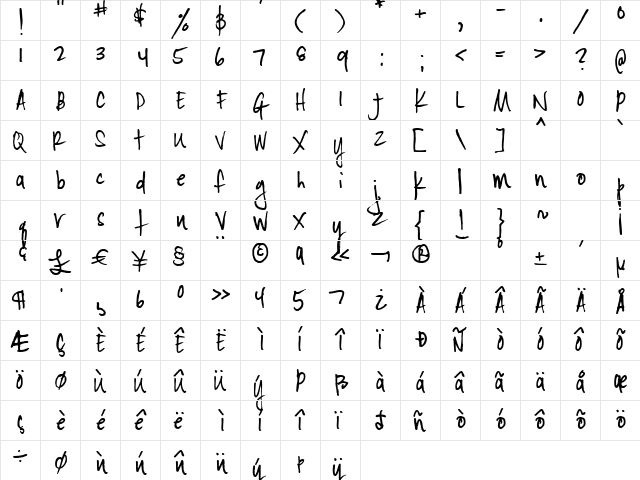
CinahandAlternate Light Font Preview
CinahandAlternate Light
CinahandAlternate Light Font Details
| Foundry | YouWorkForThem |
| Designer | Michael Cina |
Design Context for CinahandAlternate Typeface
CinahandAlternate flows with the natural rhythm of handwritten lettering, making it ideal for designs that call for warmth and personal expression. The delicate stroke weight brings airiness and refinement to layouts.
Font Pairing: Combine CinahandAlternate with a simple geometric sans for maximum contrast — the tension between flowing curves and clean structure is a classic typographic pairing.